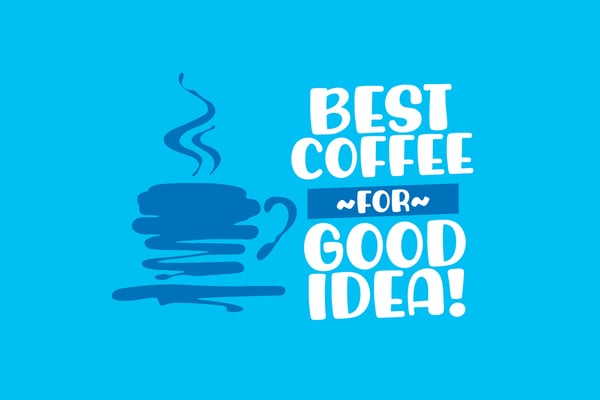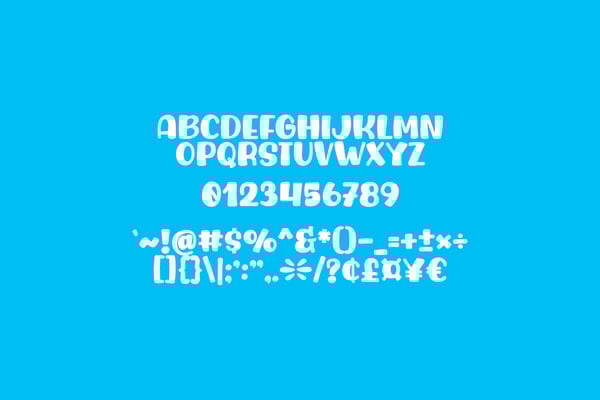
Sometimes you stumble across a font that just makes you smile – and Yourpal is exactly that kind of typeface. This delightful free display font brings an instant dose of charm and personality to any creative project, striking that perfect balance between playful and professional that designers are always searching for.
What Makes Yourpal Special
Yourpal stands out in the crowded world of display fonts with its modern, cute aesthetic that feels both contemporary and timeless. The rounded edges and friendly character spacing create an approachable feel that works beautifully across a wide range of applications.
Perfect for Every Creative Project
Whether you're designing eye-catching posters, memorable logos, magazine layouts, or book covers, Yourpal adapts effortlessly to your creative vision. Its versatile design makes it equally at home on children's book covers and modern advertising campaigns. The font's playful nature doesn't compromise its readability, making it an excellent choice for headlines and banners that need to grab attention while remaining clear and legible.